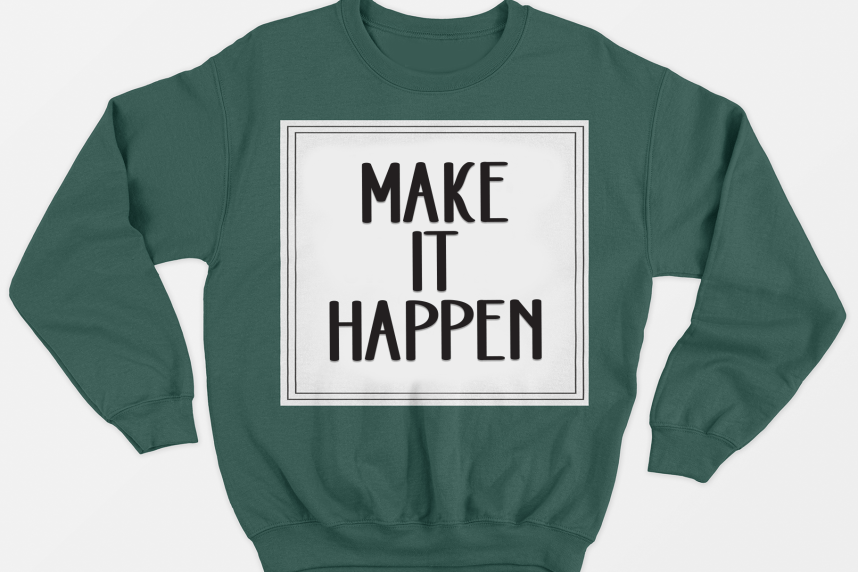
House Farming Handmade Font
House Farming Handmade Font is a sweet and friendly handwritten display font. Cute and fun, this font is ideal for writing wedding invitations, cards, or any other design that might need a playful touch!